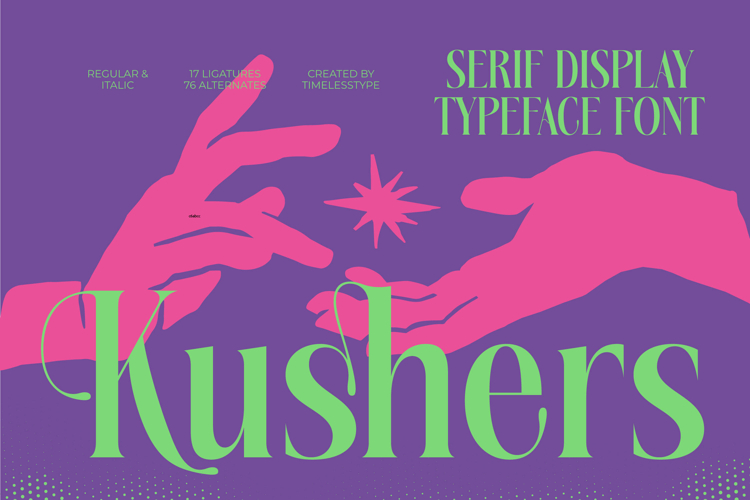
Kushers - Serif Display Typeface
Elevate your design projects with the stunning visual presence of Kushers - Serif Display Typeface. This font is a masterclass in high-contrast typography, blending classic serif structure with bold, contemporary elegance. Its letterforms are characterized by deep, dramatic curves and thick/thin transitions that demand attention, making it the perfect choice for creating unforgettable headlines and iconic branding statements that instantly convey prestige and style.